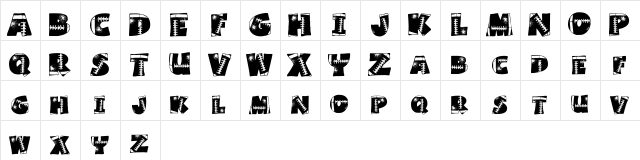
Touchdown Regular
Design Context for Touchdown Typeface
Touchdown is a composed and adaptable typeface that performs quietly and consistently across a wide range of design contexts.